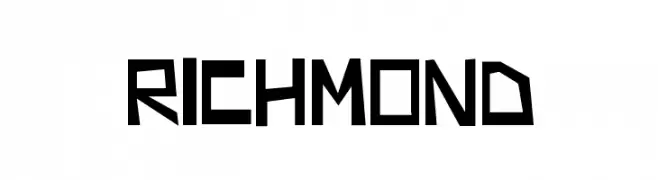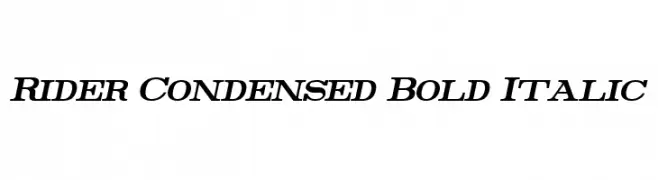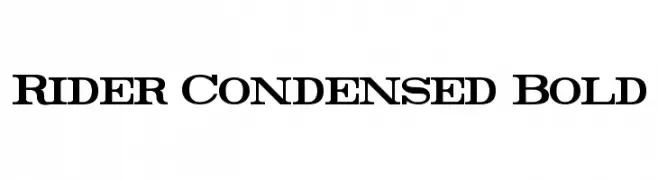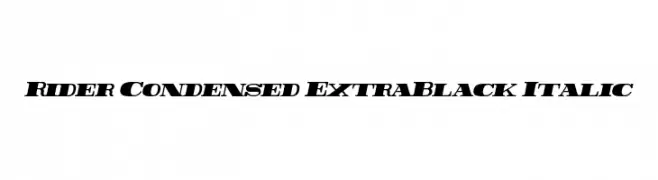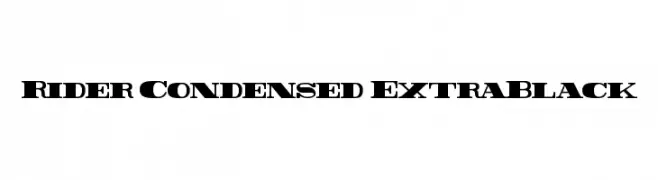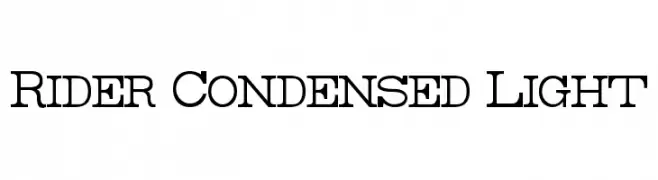
A bold, angular font with lightning bolt elements for a dynamic look.
A bold, angular font with a dynamic, lightning-inspired design.
A bold serif font with strong, angular serifs and a classic, authoritative style.
A bold, italicized font with high contrast and dynamic presence.
A bold, condensed serif font with strong, angular serifs.
A bold, italicized, and condensed font with a modern and dynamic style.
A bold, condensed serif font with minimal contrast and strong visual impact.
A bold, condensed, and italic font with high contrast and modern appeal.
A classic serif font with a condensed, light design and elegant serifs.